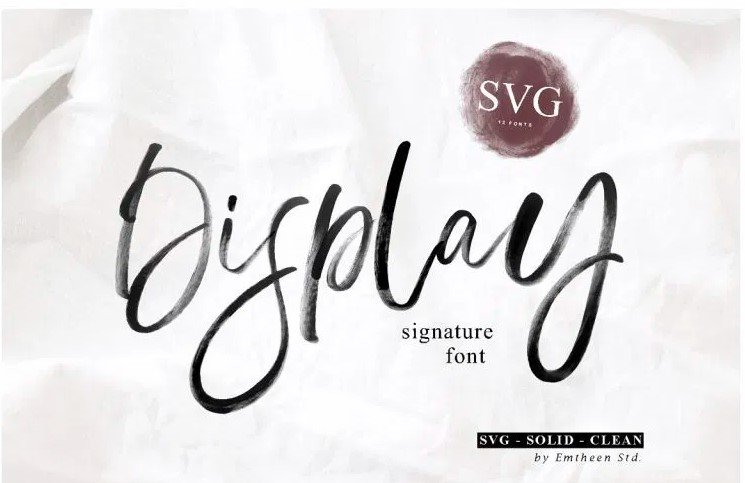
We're presenting the finest contemporary SVG color typeface, the Display Signature Font, which is an outstanding fit for enhancing your typographic collection.
The great typeface was designed by the great designers Emtheen Std. It is the perfect Scalable Vector Graphics font that comes with naturally good-looking hand lettering styles, it has a beautiful character set that can easily adjustable in all designs that you want.
It looks cuter and eye-catchy when you will use this font with the combination of brusher font that has brushed lettered typeface which comes with realistic features.
The Display Signature Font is the famous and amazing typeface which was product of the Emtheen Std.